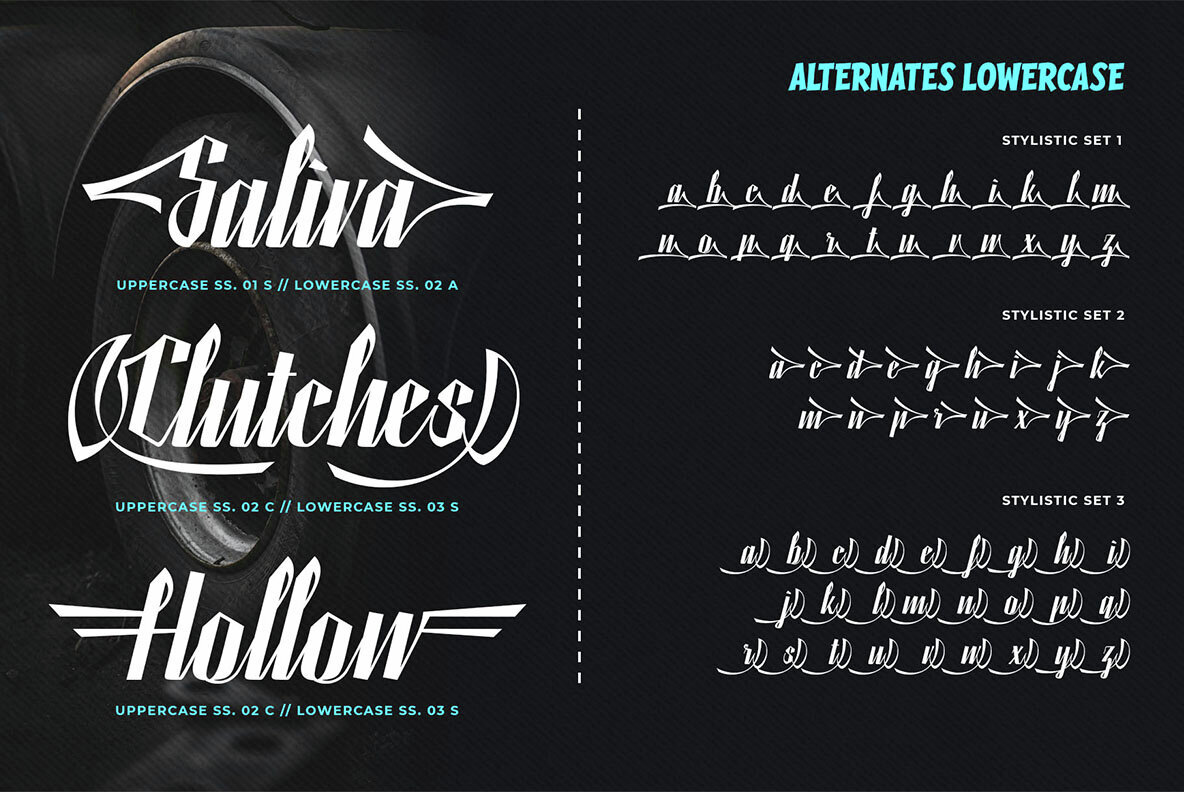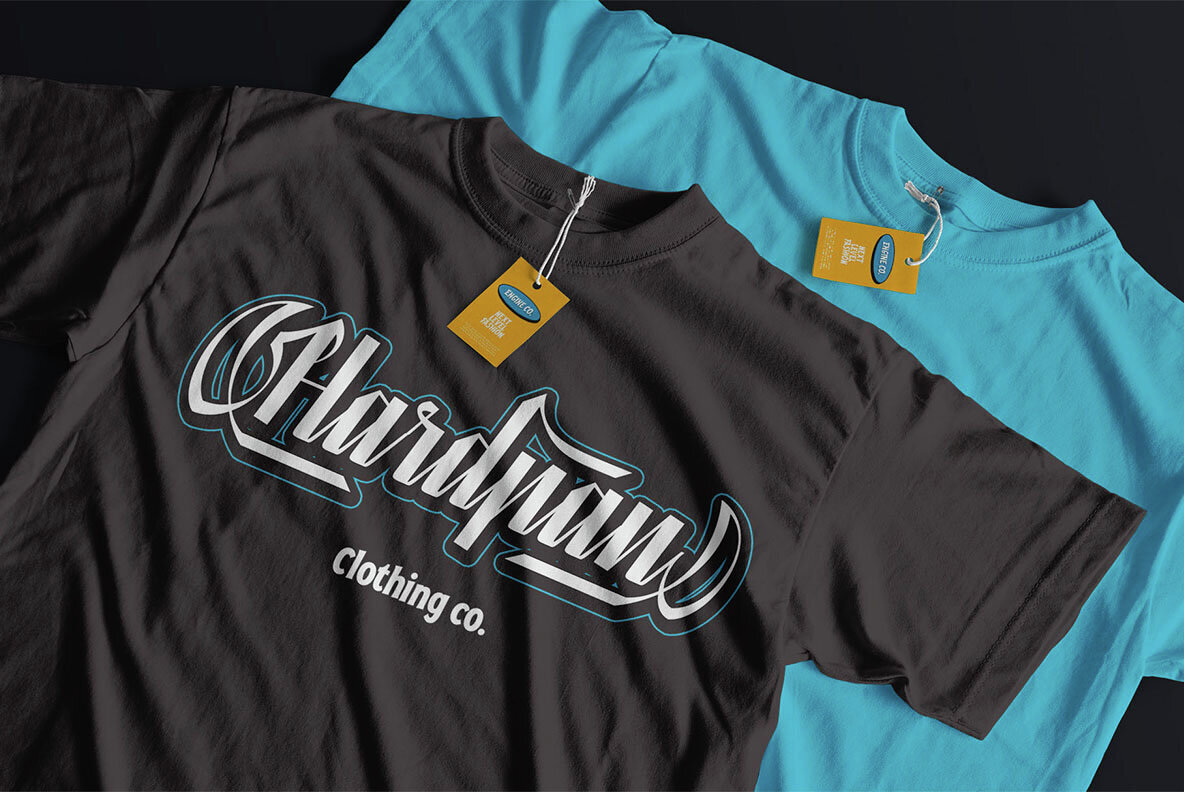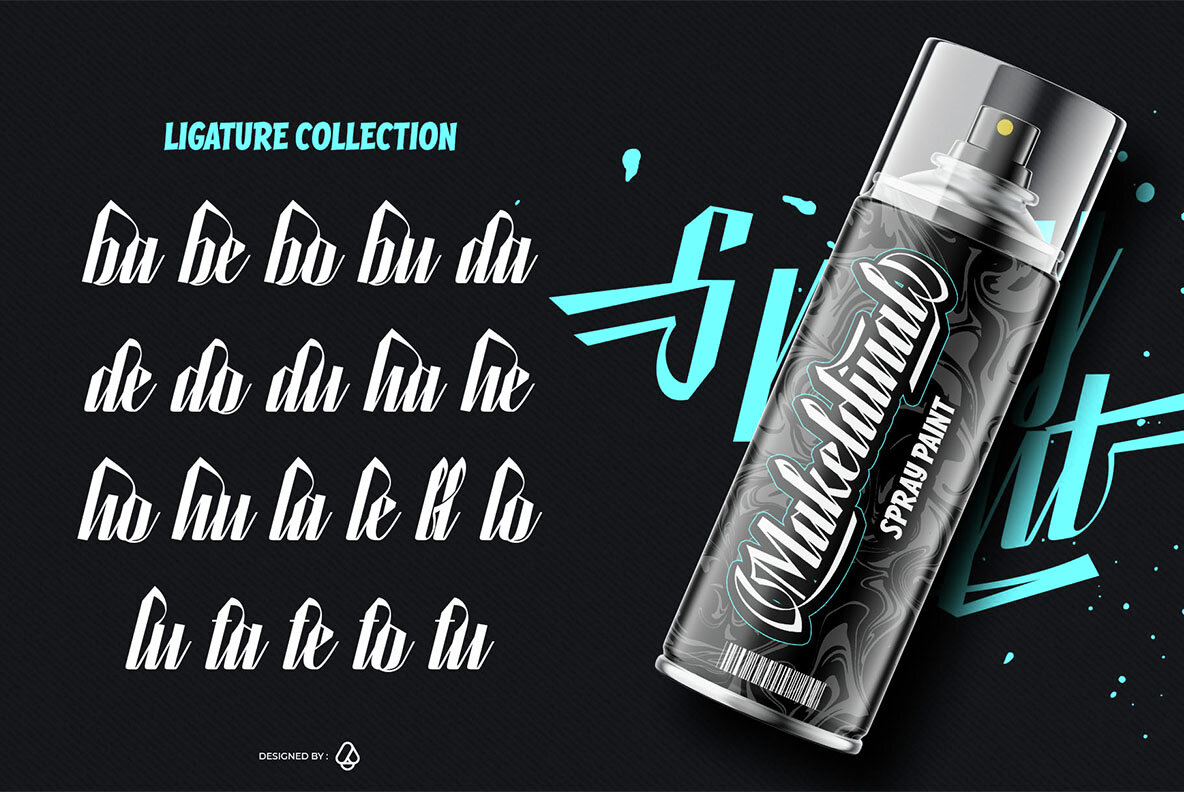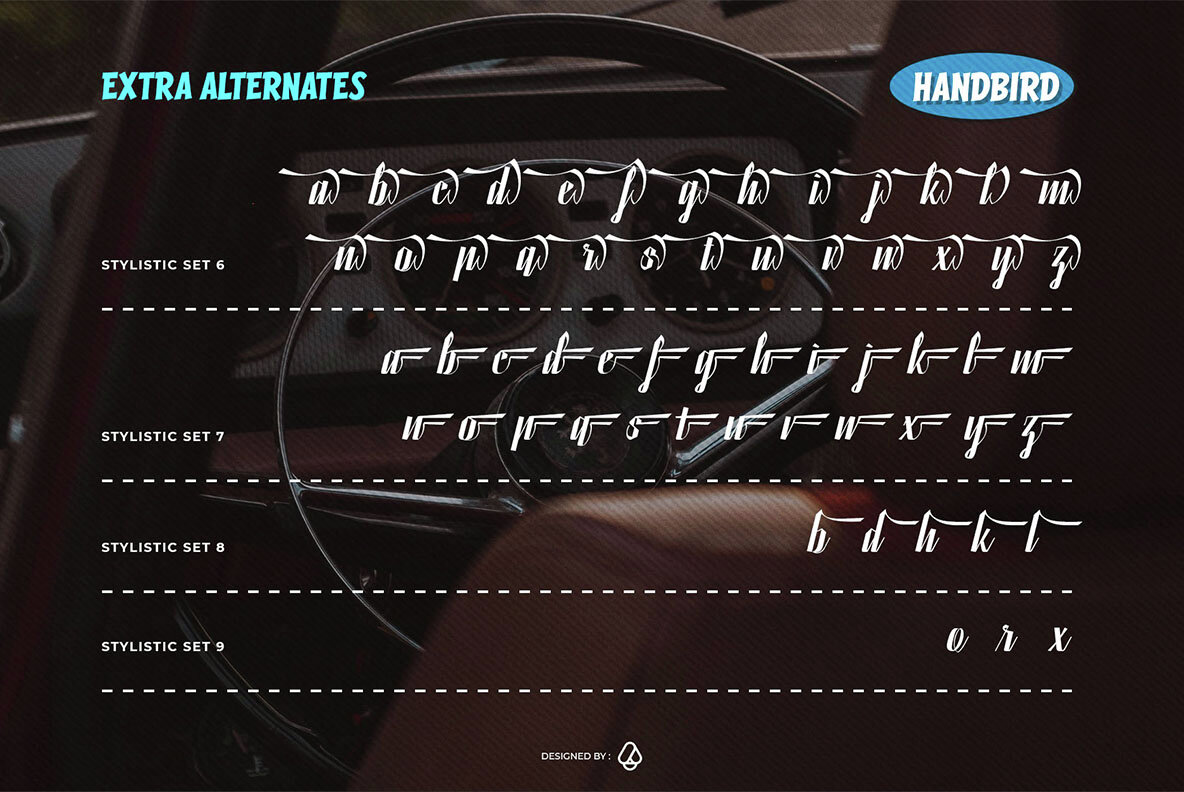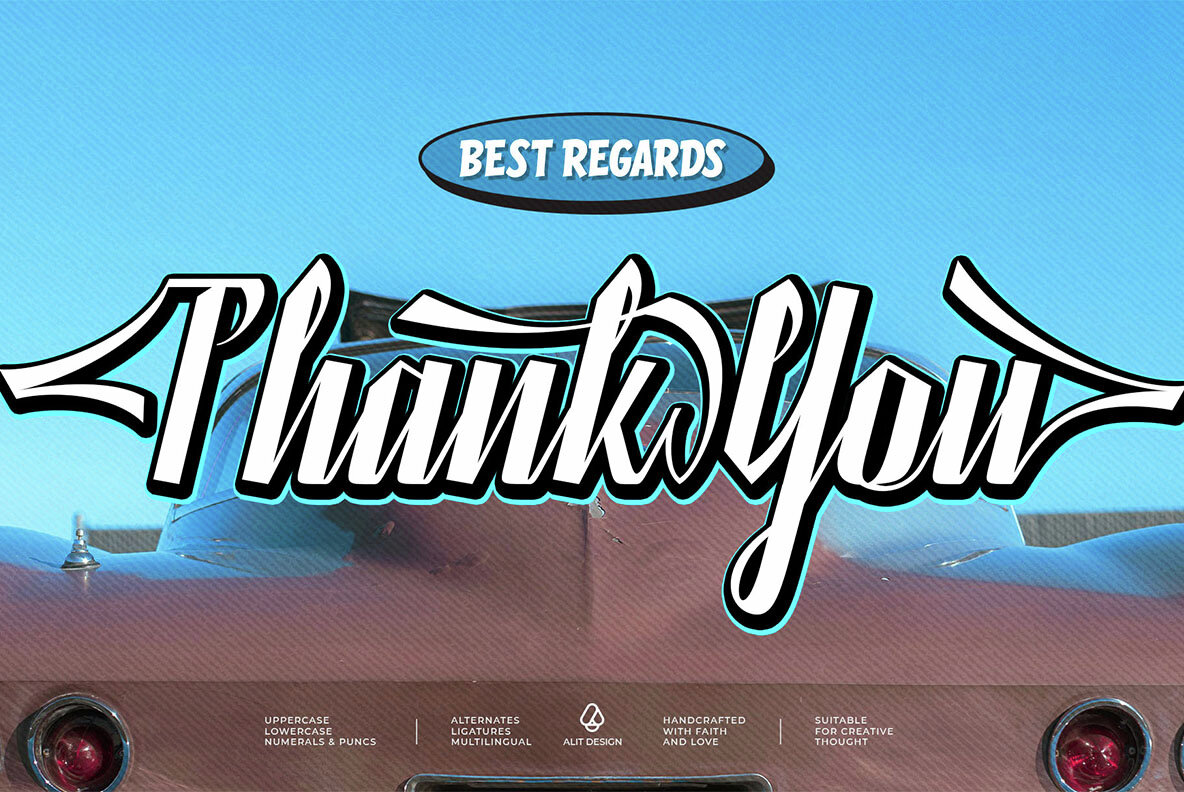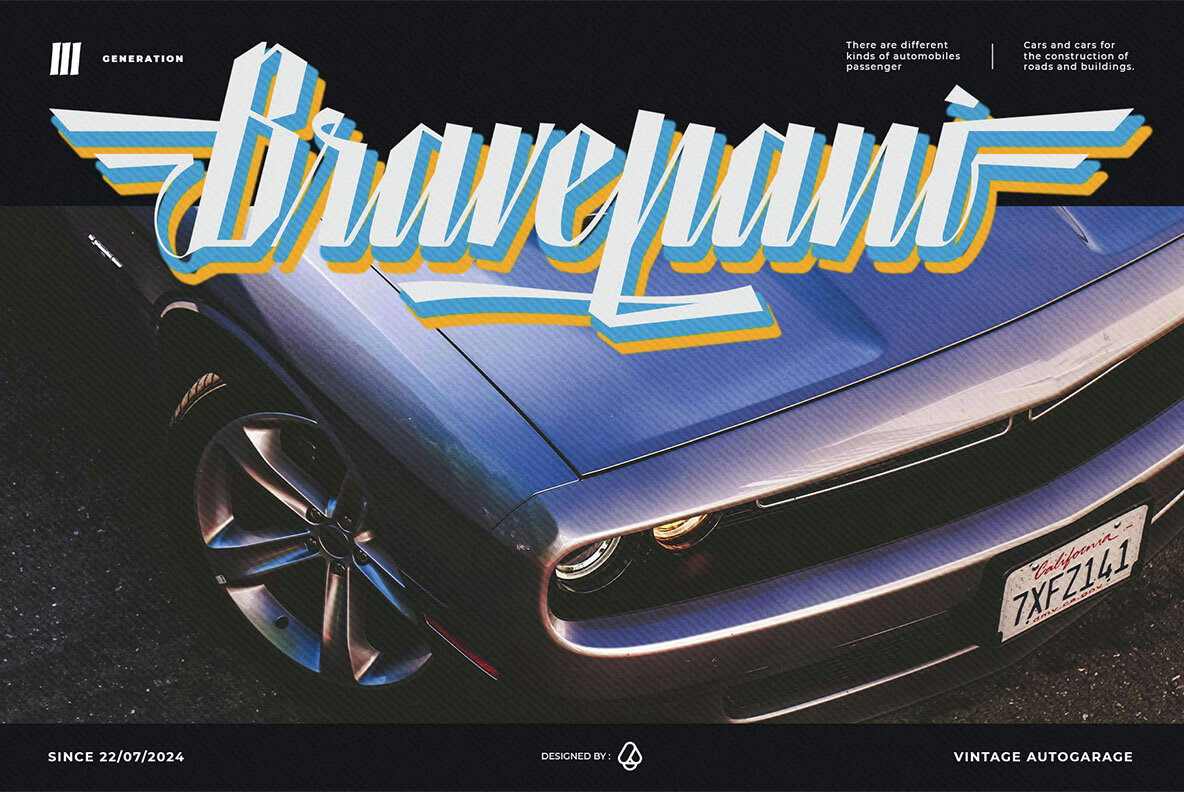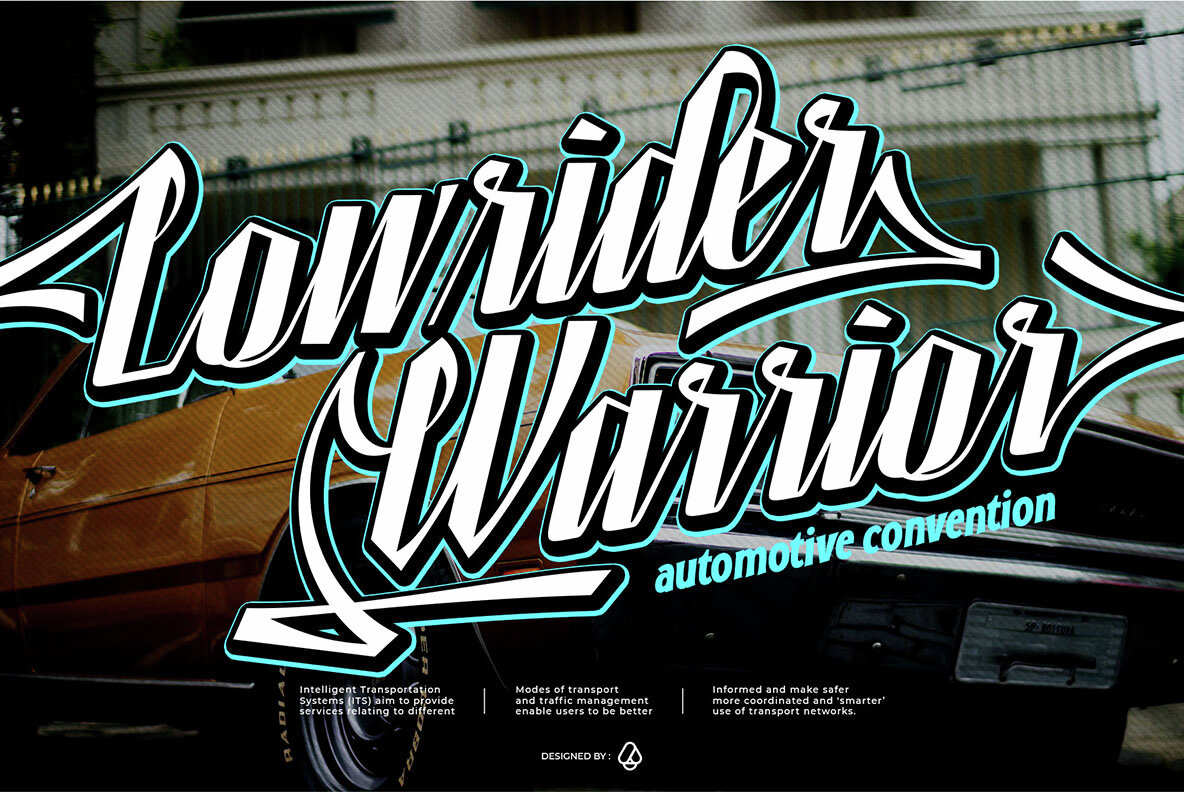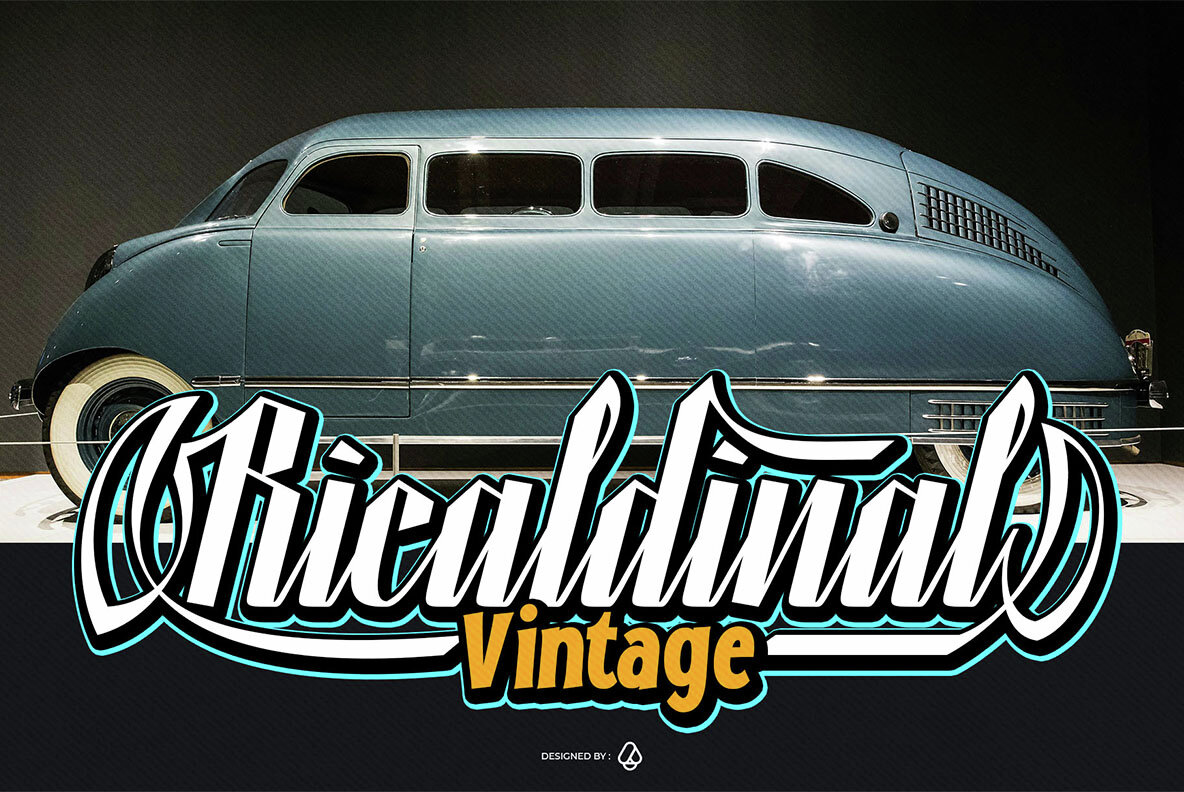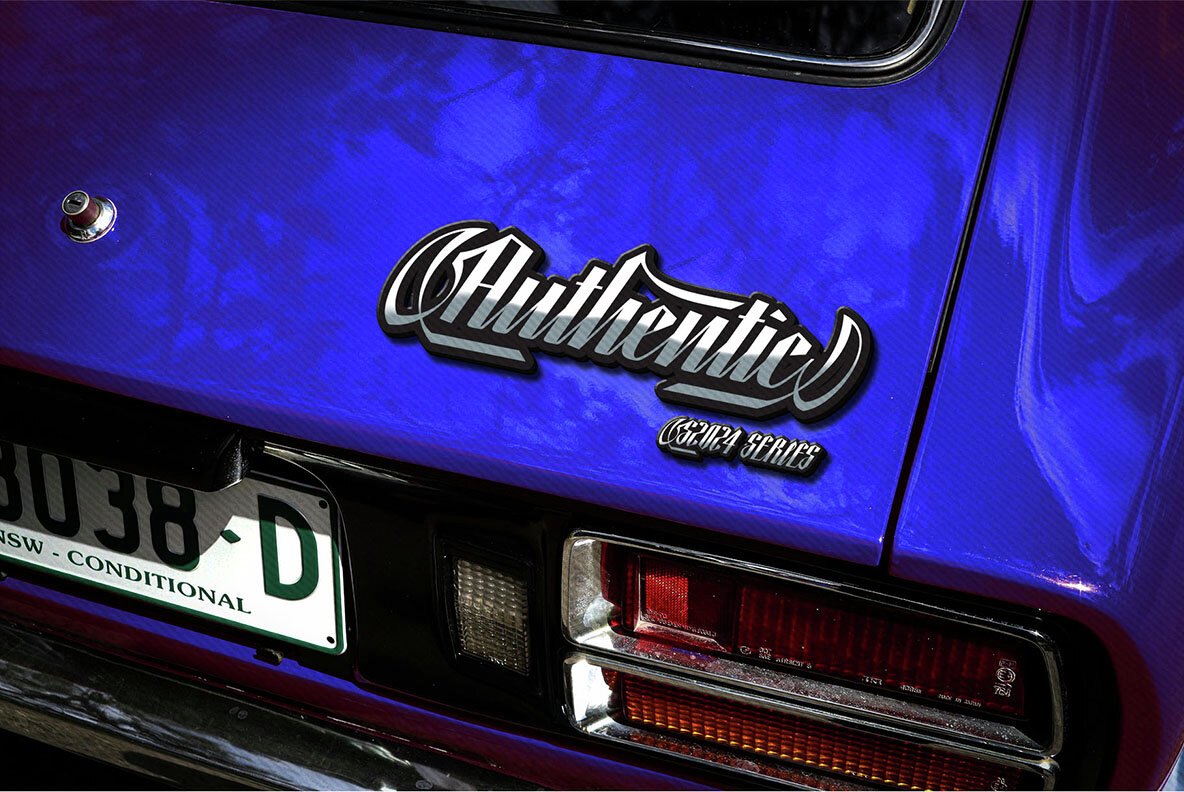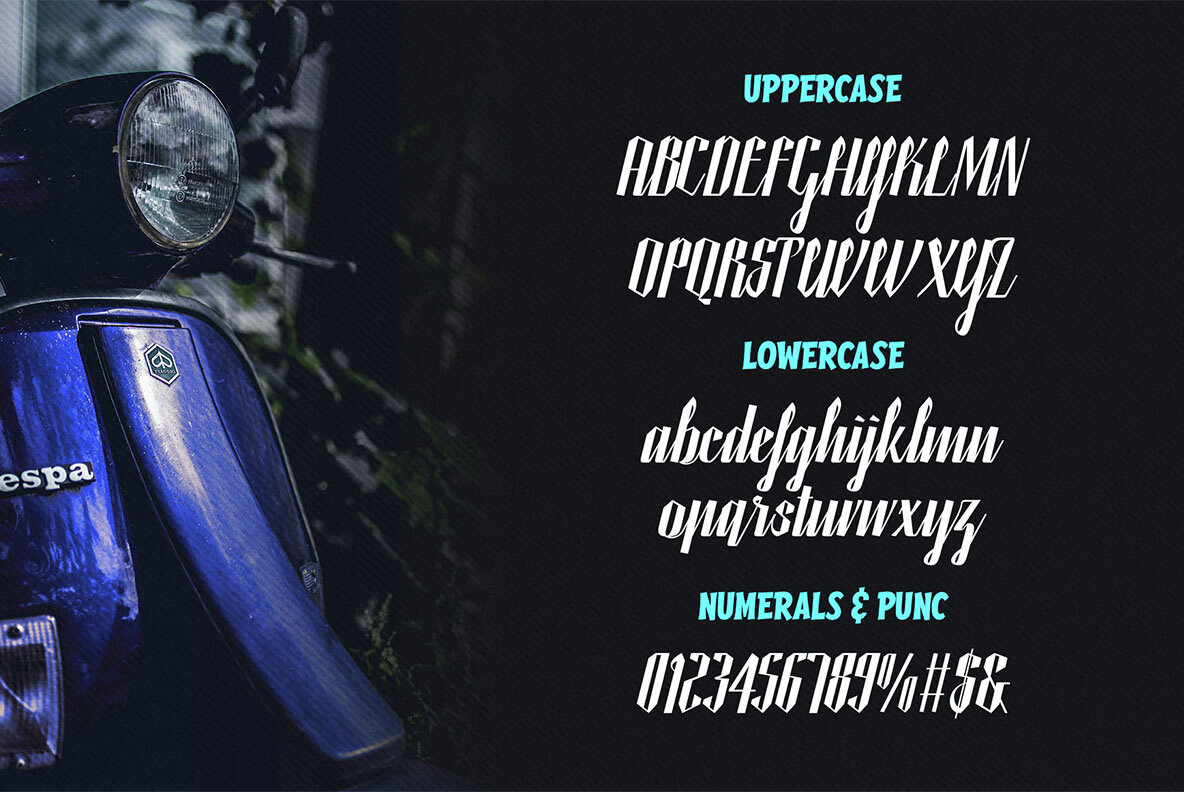
Handbird Font
Handbird Regular
Introducing the Handbird Script Font – where elegance meets intensity. This bold and sophisticated font is perfect for adding a touch of fierce style to your projects. With 785 characters, Handbird Script Font offers unmatched versatility and dynamism.
Themes & Features:
- Fierce Script: Handbird Script Font captures fierce elegance with sharp edges and bold strokes, giving your text a commanding presence. Ideal for headlines, logos, and branding materials that need to stand out.
- Speedy: The fluid and swift strokes convey movement and urgency, making it perfect for sports brands, automotive designs, and other fast-paced projects.
- Dynamic: Its versatile design adapts to various needs, whether for eye-catching posters, social media graphics, or stylish apparel, bringing an energetic and engaging flow to your text.
- Ligatures: The extensive set of ligatures ensures smooth and natural connections between letters for a seamless and professional appearance.
- Swash: Decorative swash characters add extra flair, bringing a luxurious touch to wedding invitations, greeting cards, and other special projects.
- 785 Characters: This comprehensive character set includes uppercase and lowercase letters, numbers, punctuation, multilingual support, and a variety of stylistic alternates.
Applications:
Handbird Script Font is ideal for a wide range of applications including branding and logo design, packaging, apparel design, advertising, social media graphics, and headlines.
Transform your projects with Handbird Script Font and create lasting impressions with its unique blend of fierce, speedy, and dynamic qualities. The extensive character set offers endless creative possibilities for any designer’s toolkit.